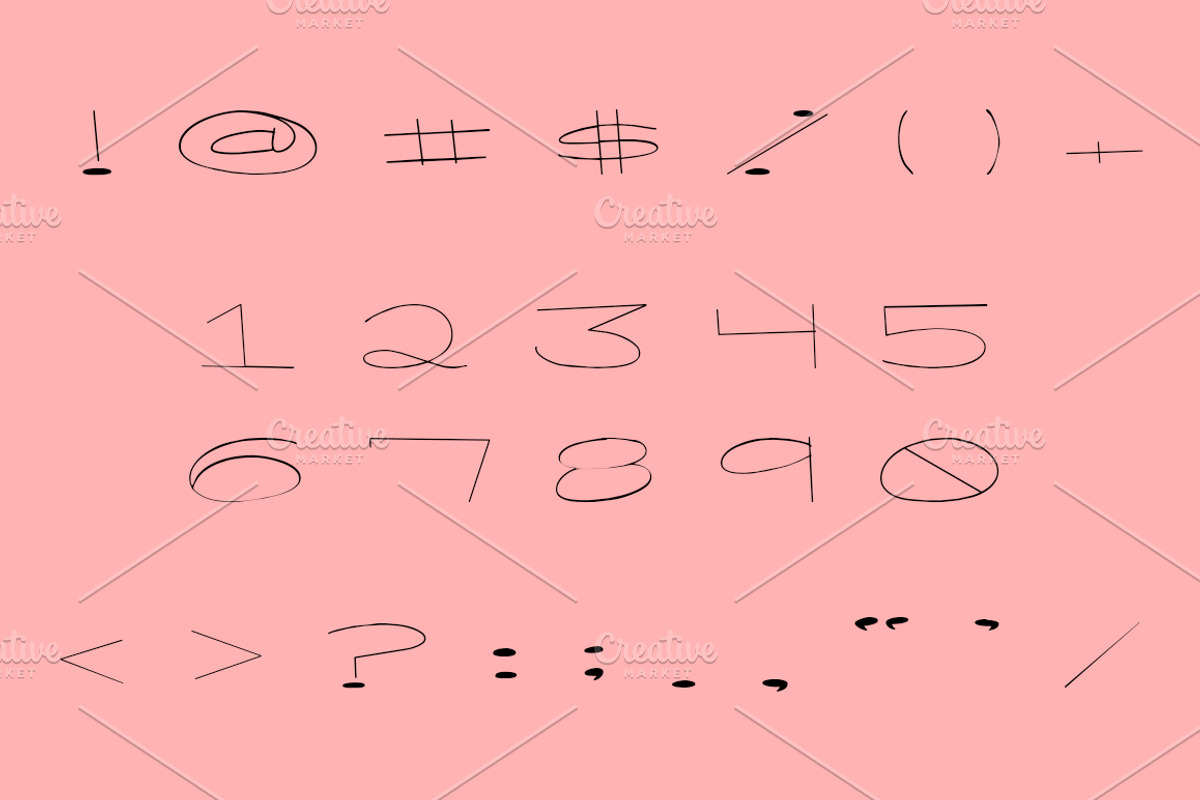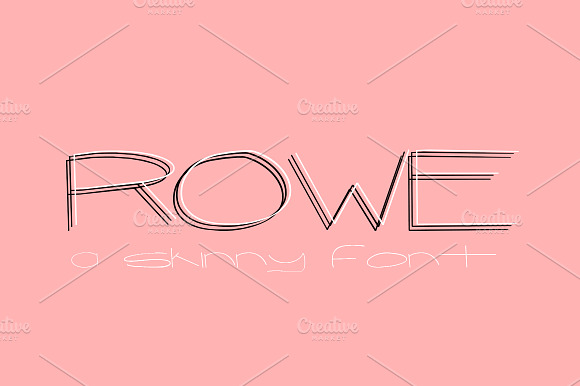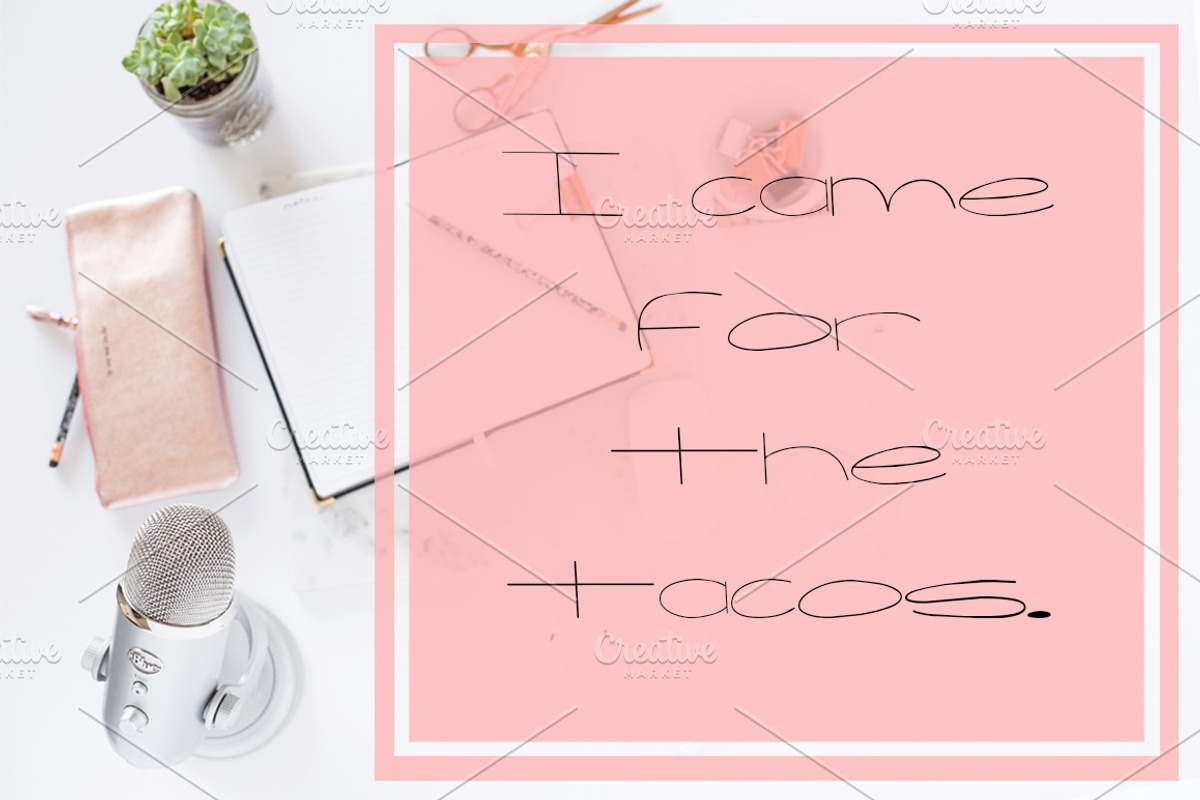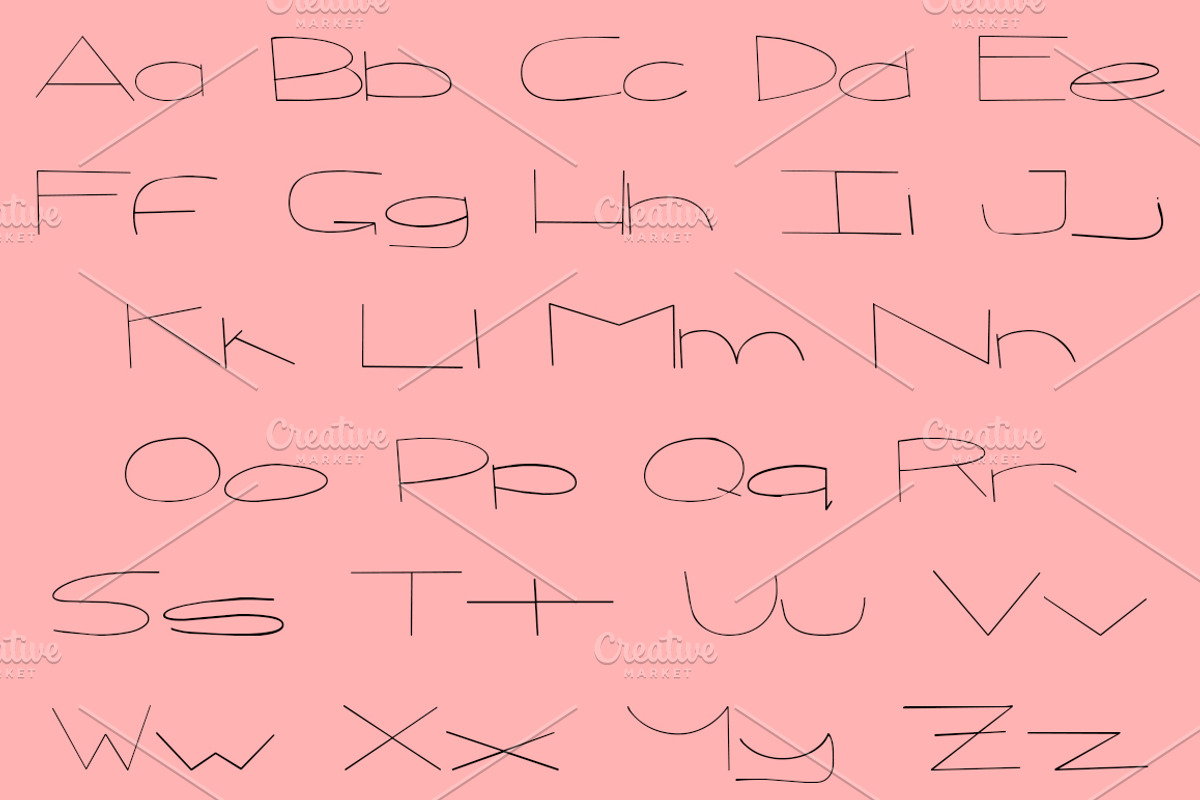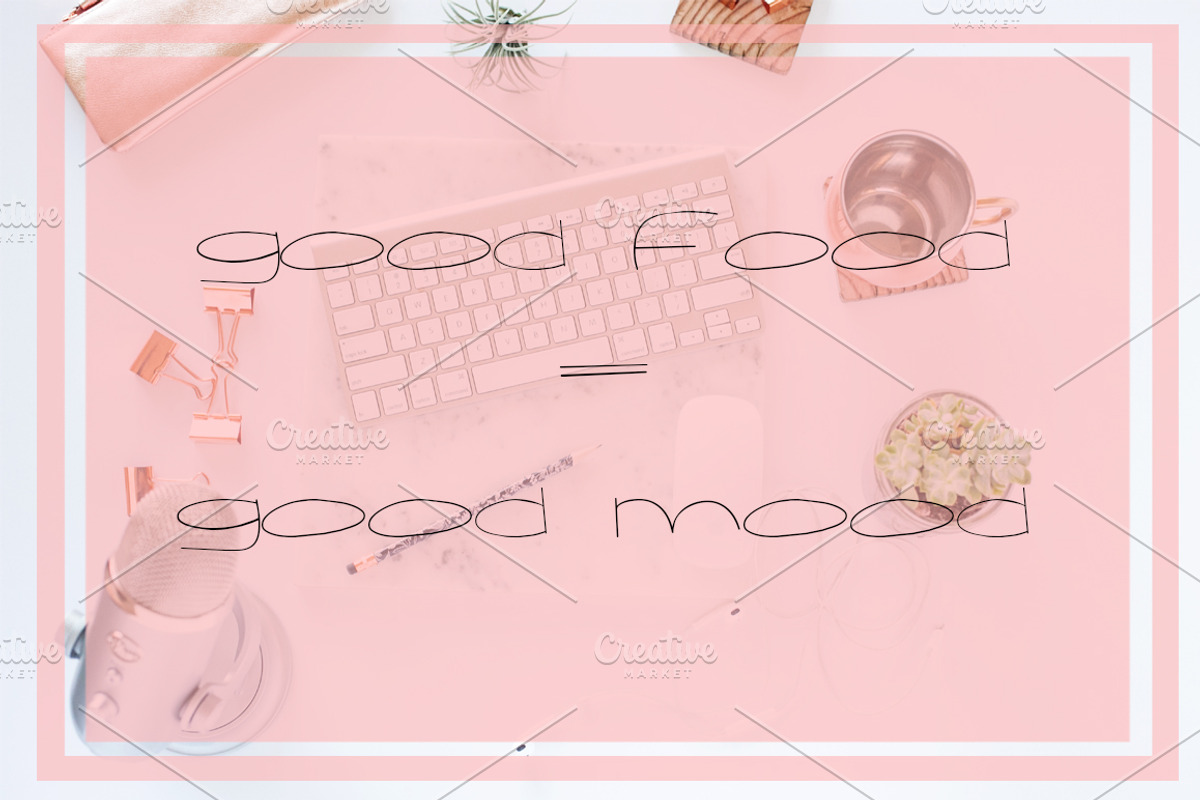
ROWE Skinny Hand Lettered Font
Rowe is a skinny and stubby little font with a good heart and a sweet personality! This font gives an authentic, hand written look to any project.
ROWE Skinny Hand Lettered Font by Rhonna Designs fits naturally into Branding, posters, packaging, typography.